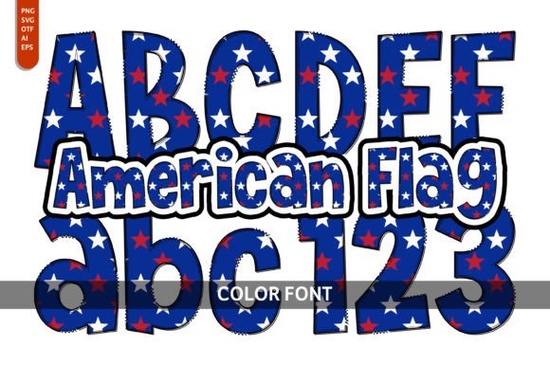
The American Flag Font is a bold, colorful typeface designed around the stars and stripes of the U.S. flag. Each letter is filled with patriotic red, white, and blue patterns, making it a natural fit for holiday projects, national events, and any design that needs a proud, all-American look. If you create graphics for Independence Day, veterans' events, or themed merchandise, this font is worth a closer look.
What Makes This Font Different From a Regular Patriotic Typeface?
Most patriotic fonts rely on bold, blocky shapes or serif styles with a vintage feel. The American Flag Font takes a different approach. Every character is filled with an actual flag texture the stripes, the stars, the deep navy blue of the canton. It's not just styled to look American; it's wrapped in the flag itself.
This means you don't need extra overlays or clip art to get the patriotic effect. The font is the design element. That saves time in layout and keeps your artwork clean, especially on small items like stickers, tags, or social media posts.
Who Is This Font Best For?
This typeface works well for a wide range of creators:
- Print-on-demand sellers Use it on T-shirts, mugs, tote bags, and posters for seasonal sales around Memorial Day, July Fourth, and Veterans Day.
- Small business owners Add patriotic flair to flyers, signage, and promotional graphics for holiday weekend sales.
- Crafters and hobbyists Create greeting cards, scrapbook pages, party decorations, and wall art with a festive flag theme.
- Social media managers Design eye-catching posts, story templates, and banner images for national holidays.
- Event planners Make invitations, menus, and table numbers for themed parties or community celebrations.
What Can You Create With an American Flag Font?
The short answer: almost anything that needs a red, white, and blue punch. Here are some specific ideas that work especially well with this font:
- T-shirt designs Pair it with a clean sans-serif for a slogan tee. The flag-filled letters become the focal point.
- Social media graphics Use it for headlines on Fourth of July sale announcements or patriotic quote posts.
- Party invitations A single word like "CELEBRATE" or "FREEDOM" in this font sets the tone right away.
- Wall art prints Combine it with vintage textures for a rustic Americana look that sells well on Etsy.
- Greeting cards Great for military appreciation cards, holiday wishes, or thank-you notes for veterans.
- Stickers and decals Bold, colorful letters hold up well at smaller sizes and look sharp on vinyl.
How Does It Pair With Other Fonts?
Because the American Flag Font is so visually busy, it pairs best with simple, clean companion fonts. A basic sans-serif or a light-weight serif works well for body text or supporting copy. You want the flag font to do the heavy lifting without competing elements around it.
Good pairings include:
- A clean sans-serif like Montserrat or Open Sans for subheadings
- A light script font for a softer, handwritten contrast
- A simple monospace font if you want a more modern, technical feel
Is It Only for July Fourth Projects?
Not at all. While Independence Day is the most obvious use, this font works year-round for:
- Military appreciation events
- Election season materials
- Patriotic brand identity for small businesses
- Sports team graphics with a red-white-and-blue theme
- Heritage and ancestry projects
- Travel or tourism designs focused on American landmarks
Quick Checklist Before You Start Designing
Here's a simple list to help you get the most out of this font:
- Check the license Confirm commercial use rights for your specific project type.
- Keep backgrounds simple White or dark solid backgrounds let the flag pattern stand out.
- Use it for headlines only This font is designed for display use, not long paragraphs.
- Pair with a neutral font Let the flag texture be the star of the design.
- Test at your final size Make sure the flag details are visible at whatever scale you're printing or displaying.
- Export in high resolution The texture details need sharp output to look their best.
If you're building a collection of themed typefaces for seasonal or event-based design work, the American Flag Font is a solid addition. It fills a very specific niche patriotic, colorful, ready to use and it does that job well without extra editing or layering on your part.